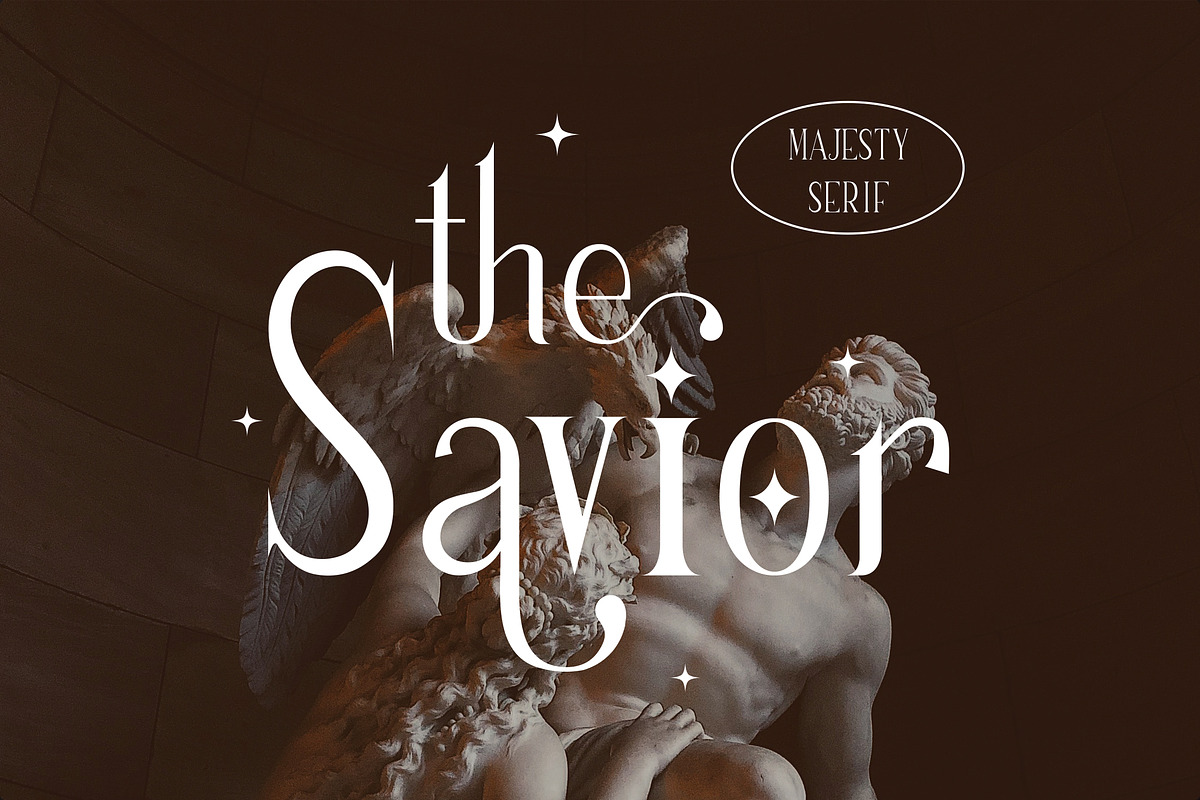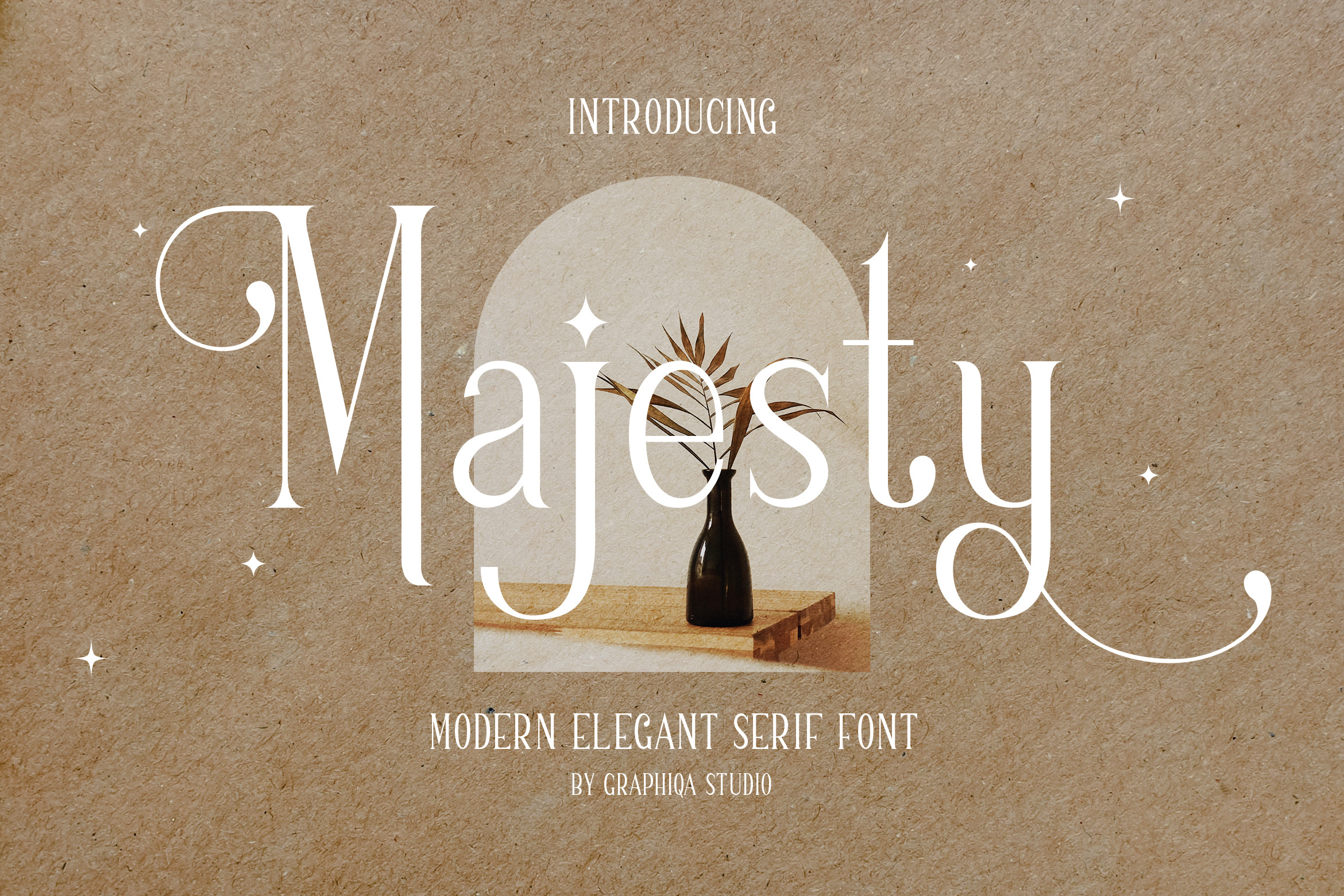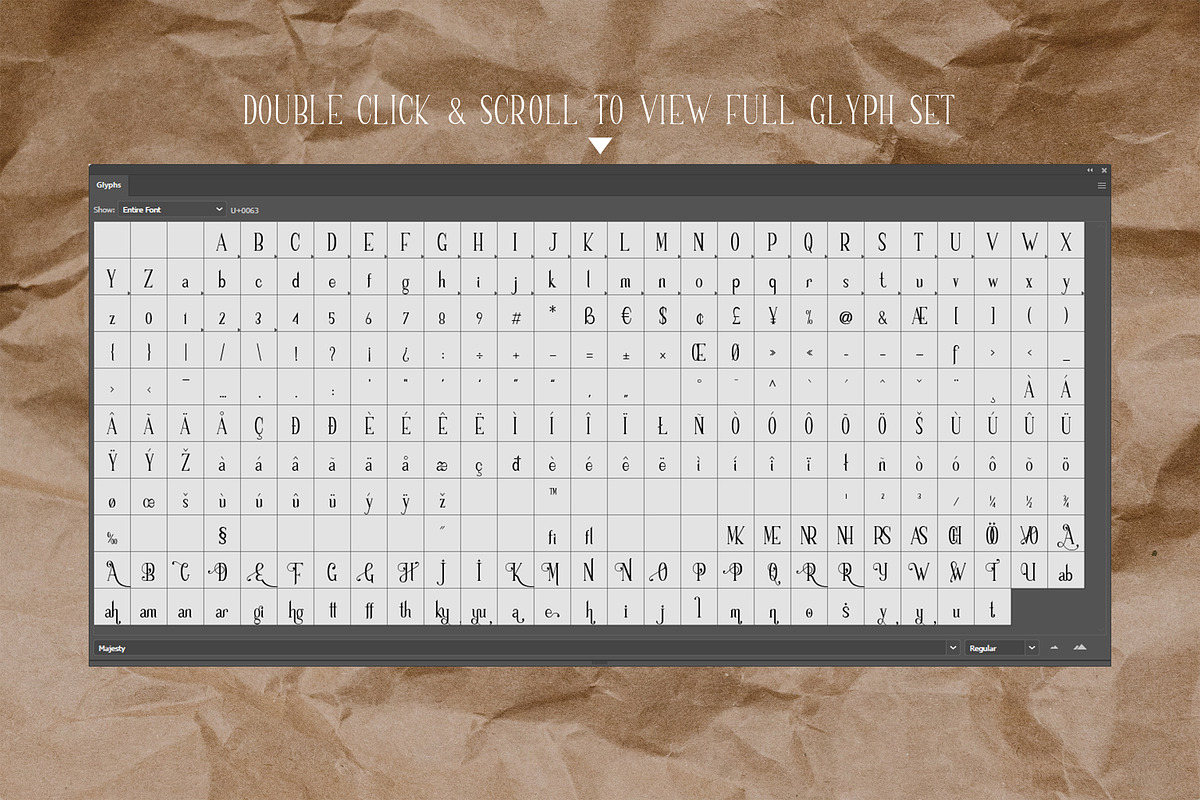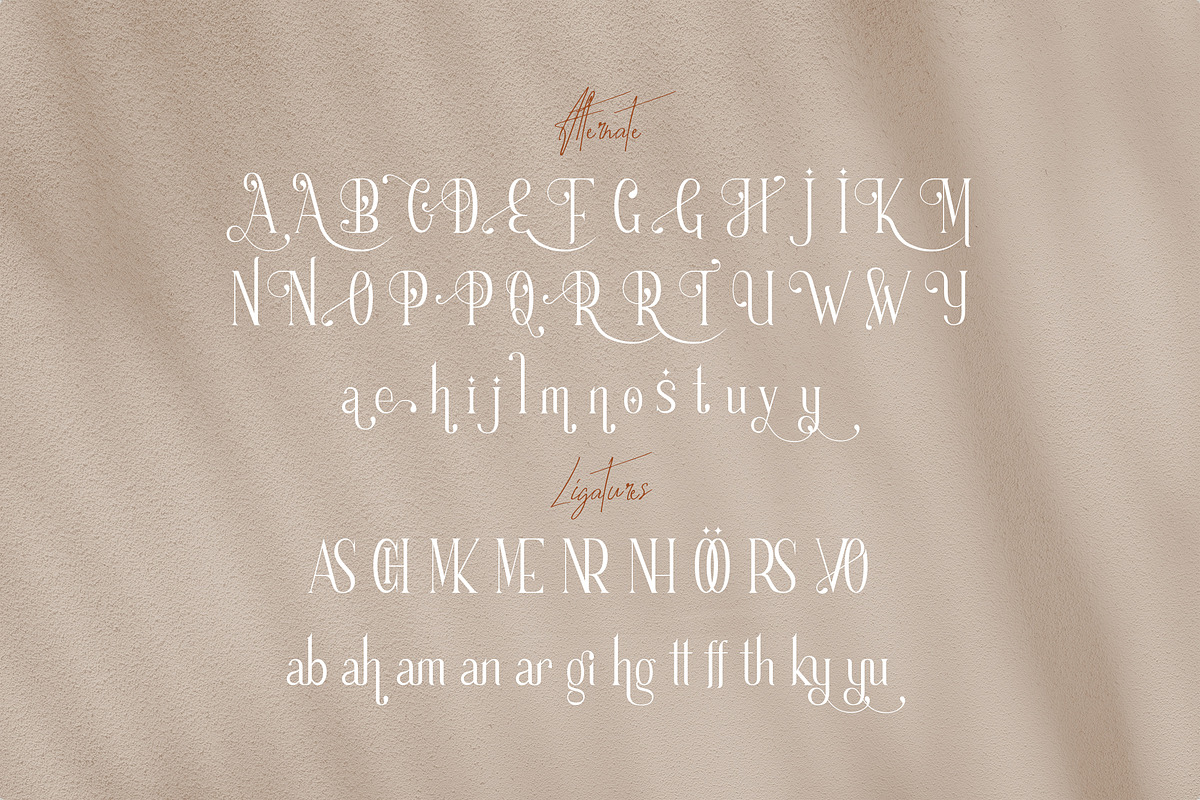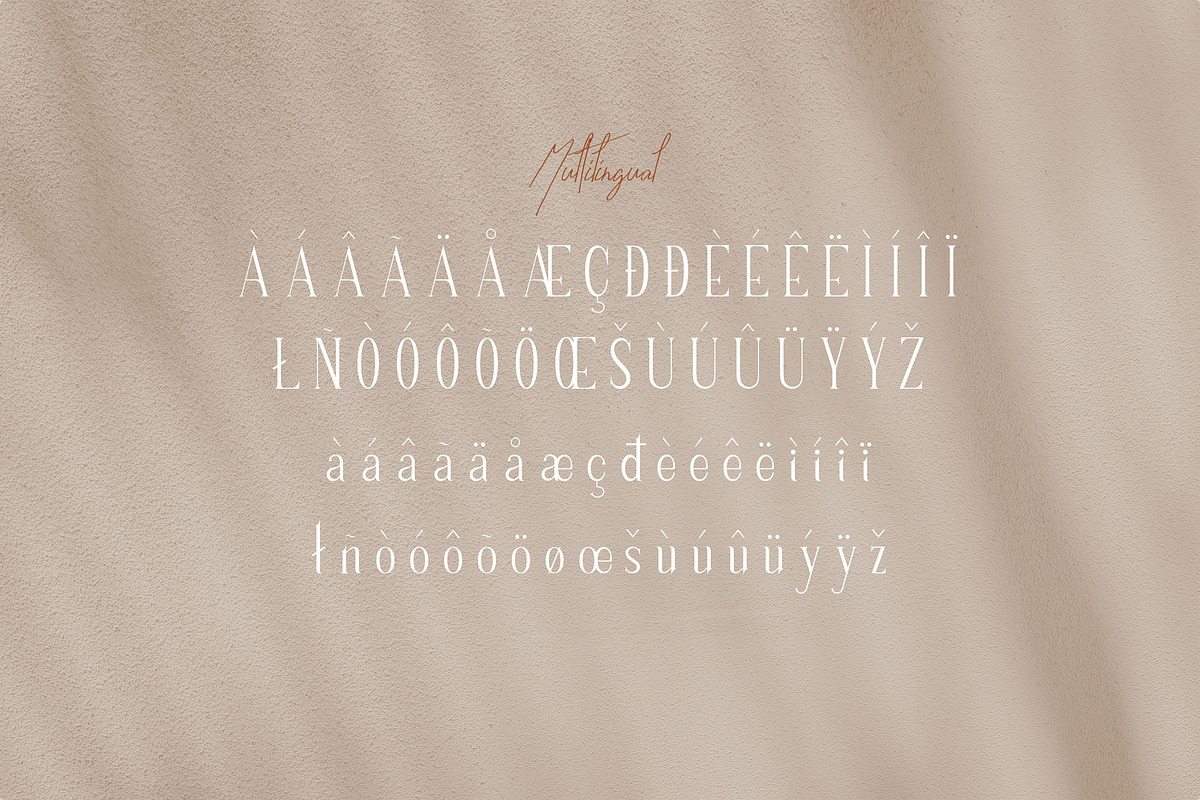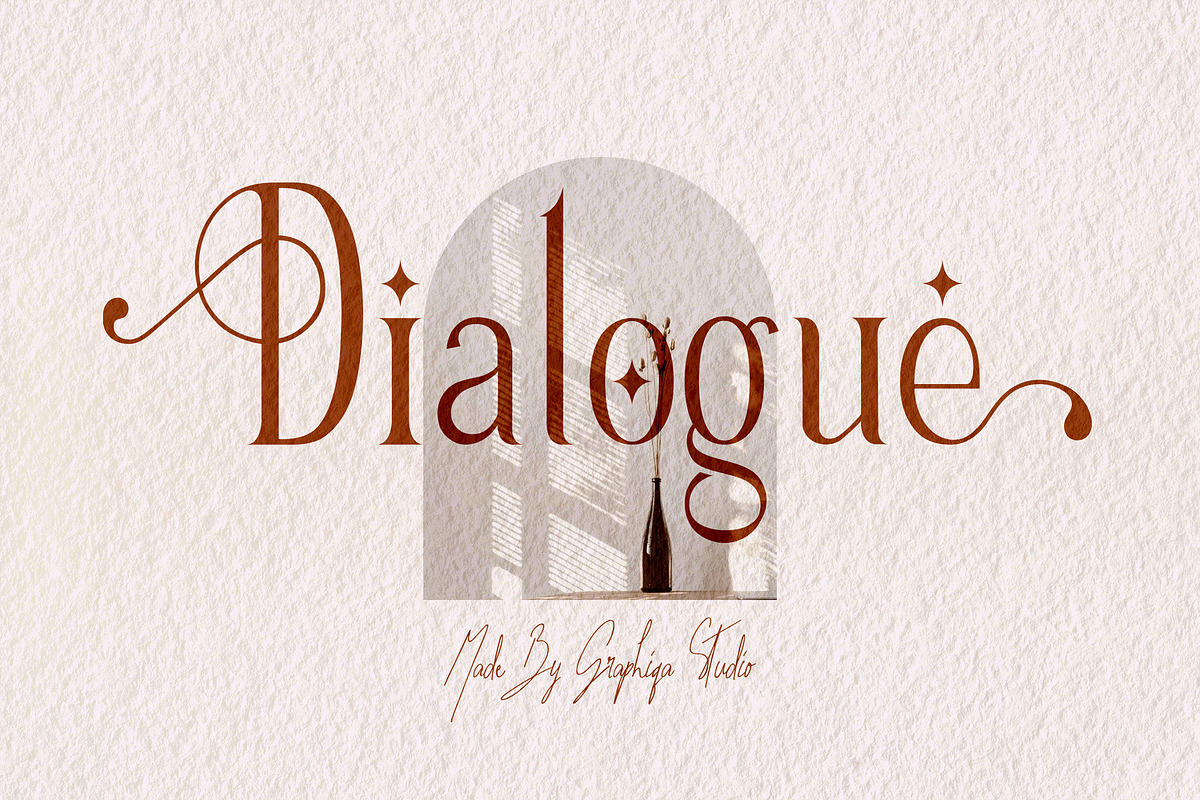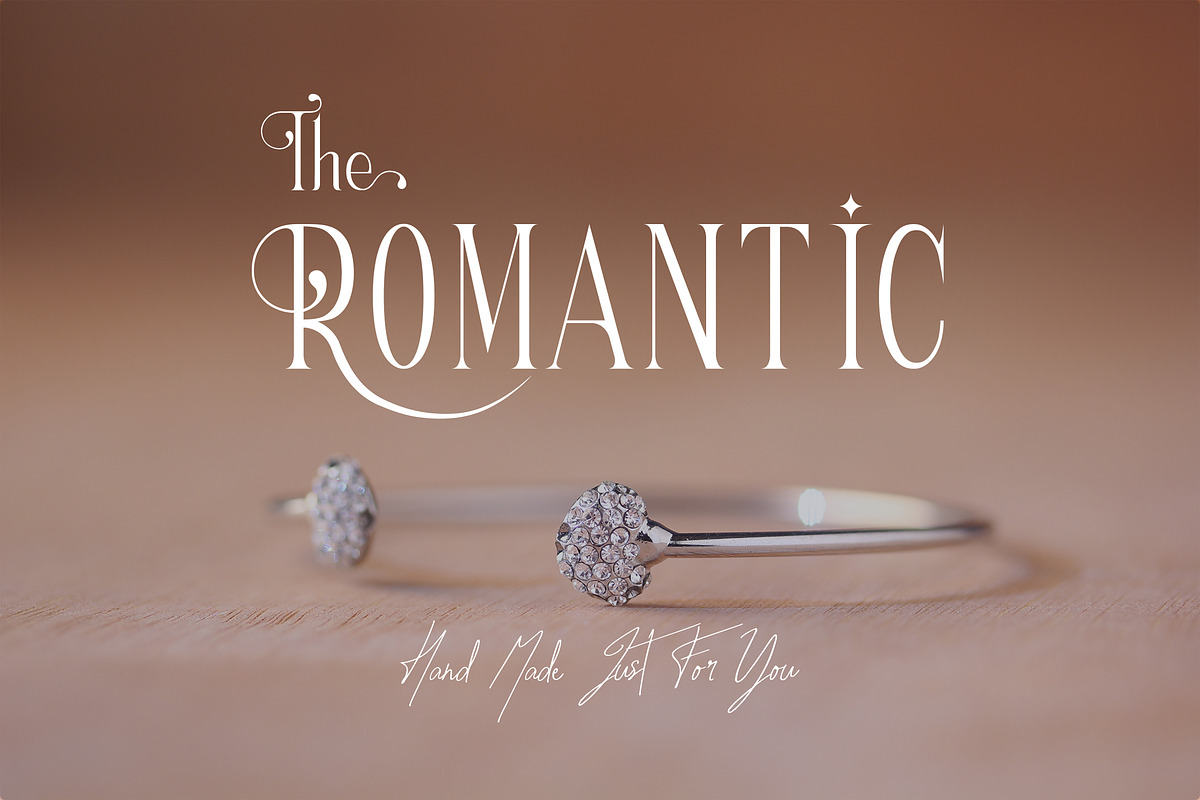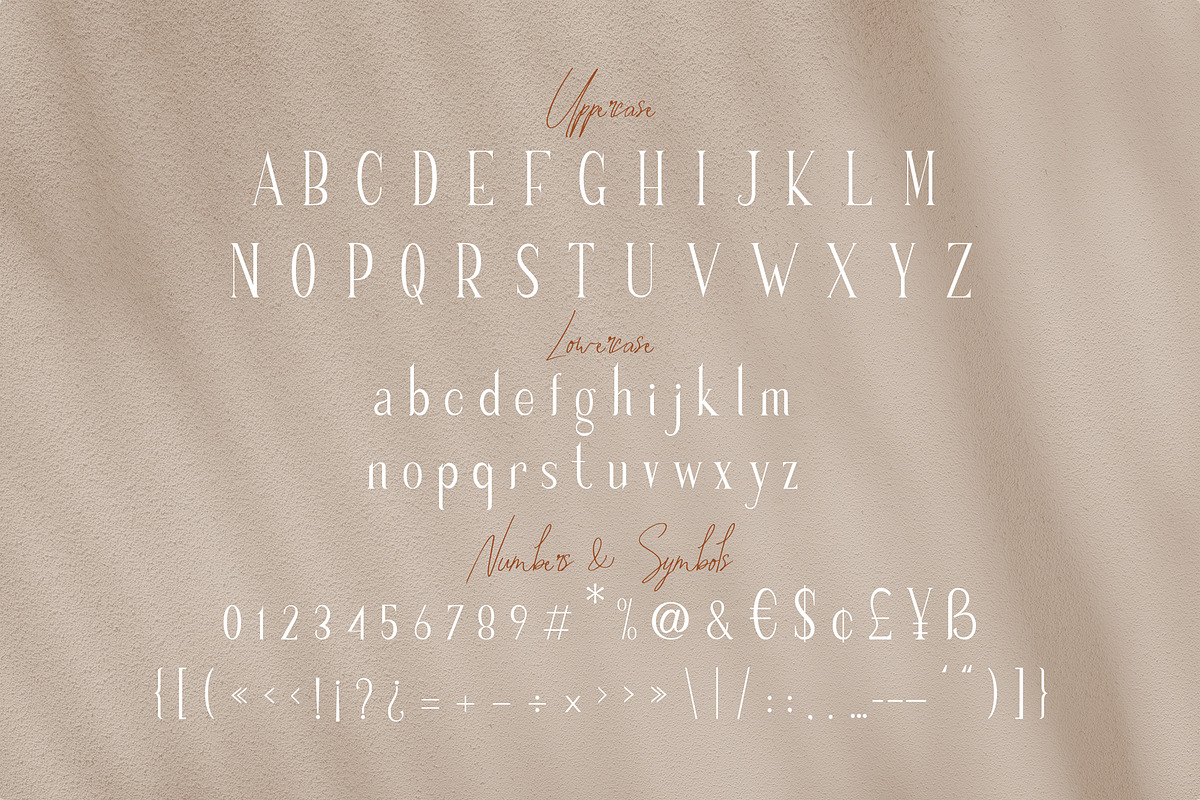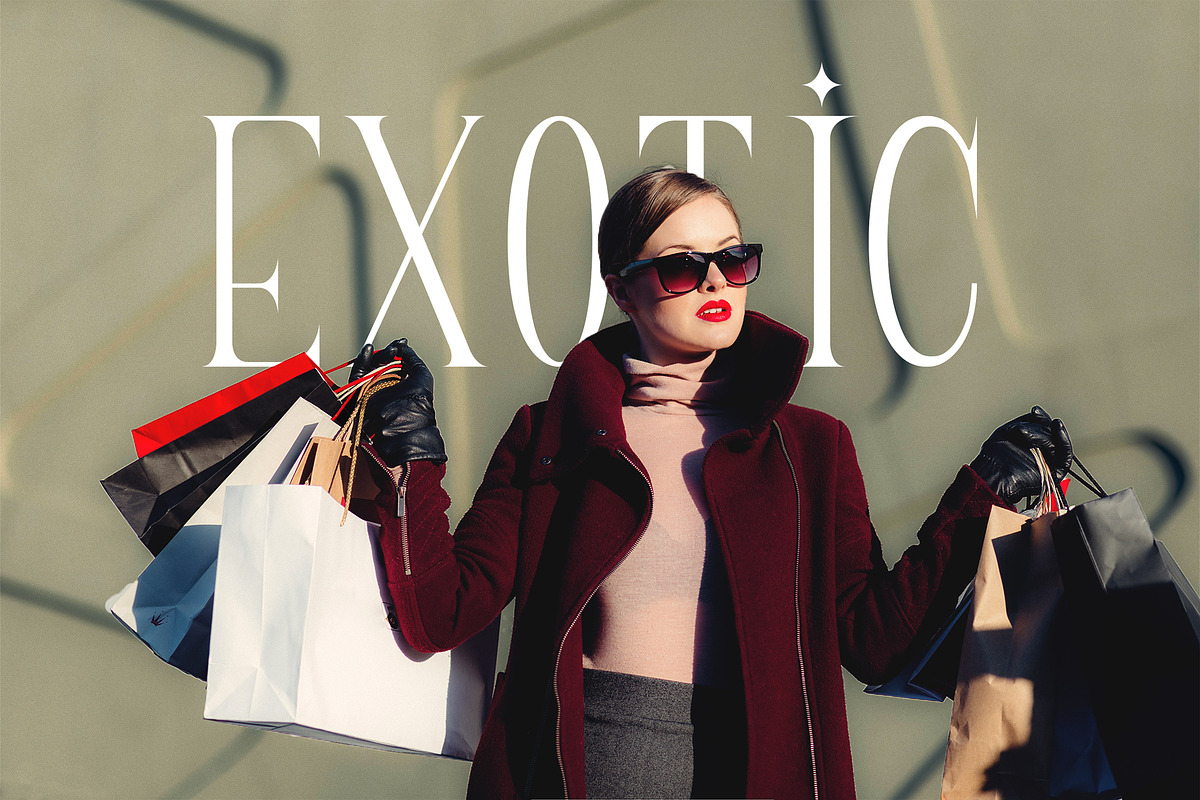
Majesty - Modern Elegant Serif Font
Introducing Majesty, is a Modern Elegant Serif Font has many purpose and suitable for branding, elegant, aesthetic, fashion, luxury, invitation, wedding event, glamour, luxury, advertising and much more.
- Available Ligatures and Alternates
- Available Multilingual Set